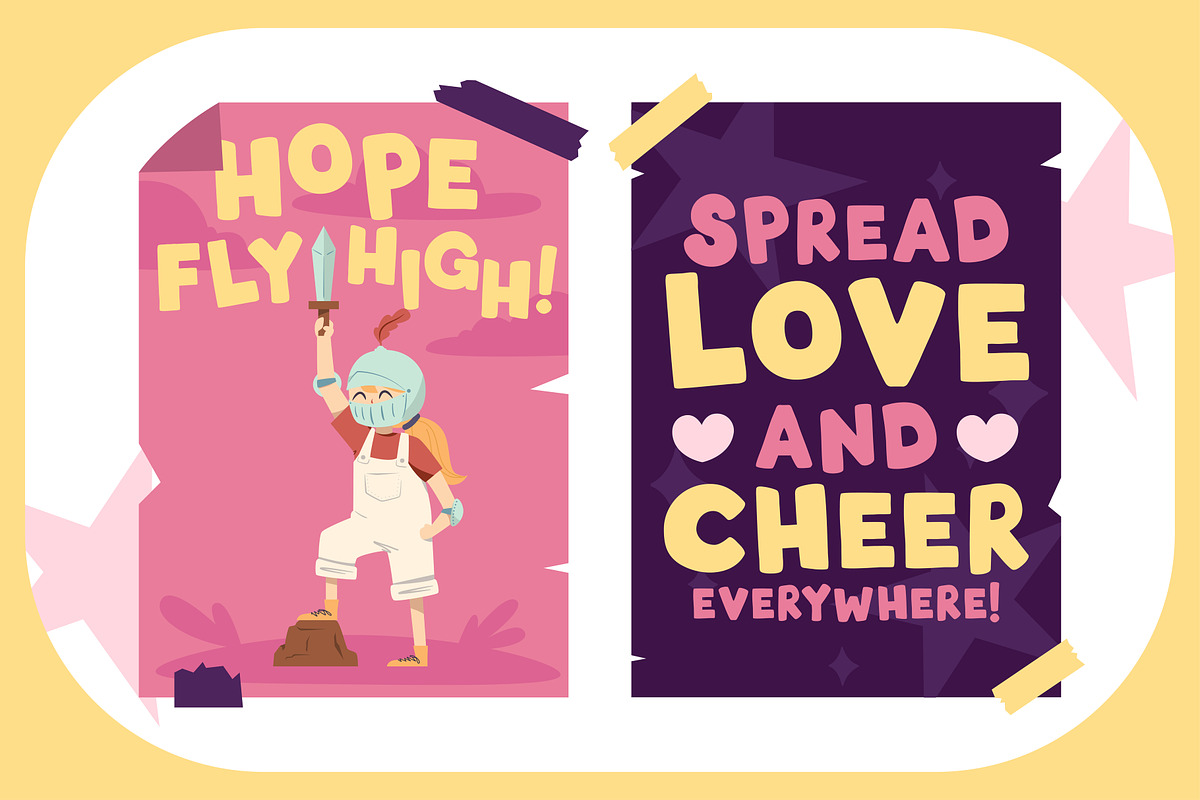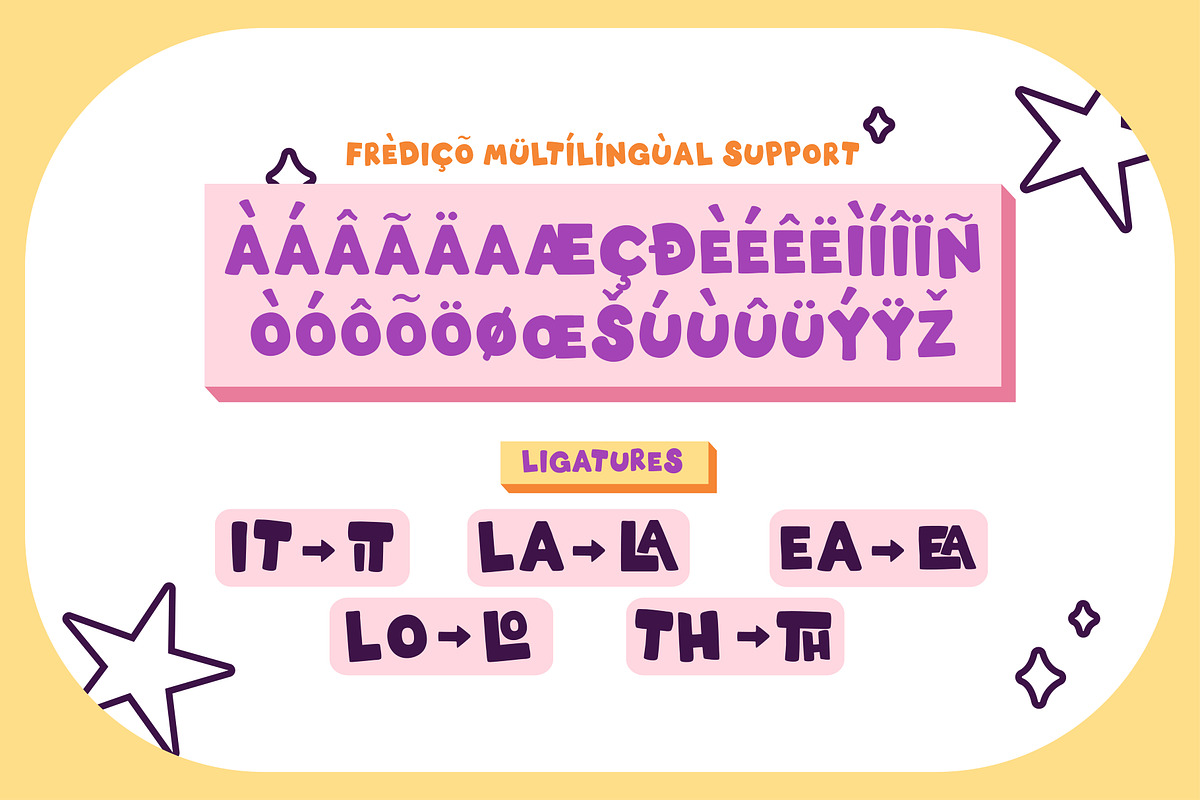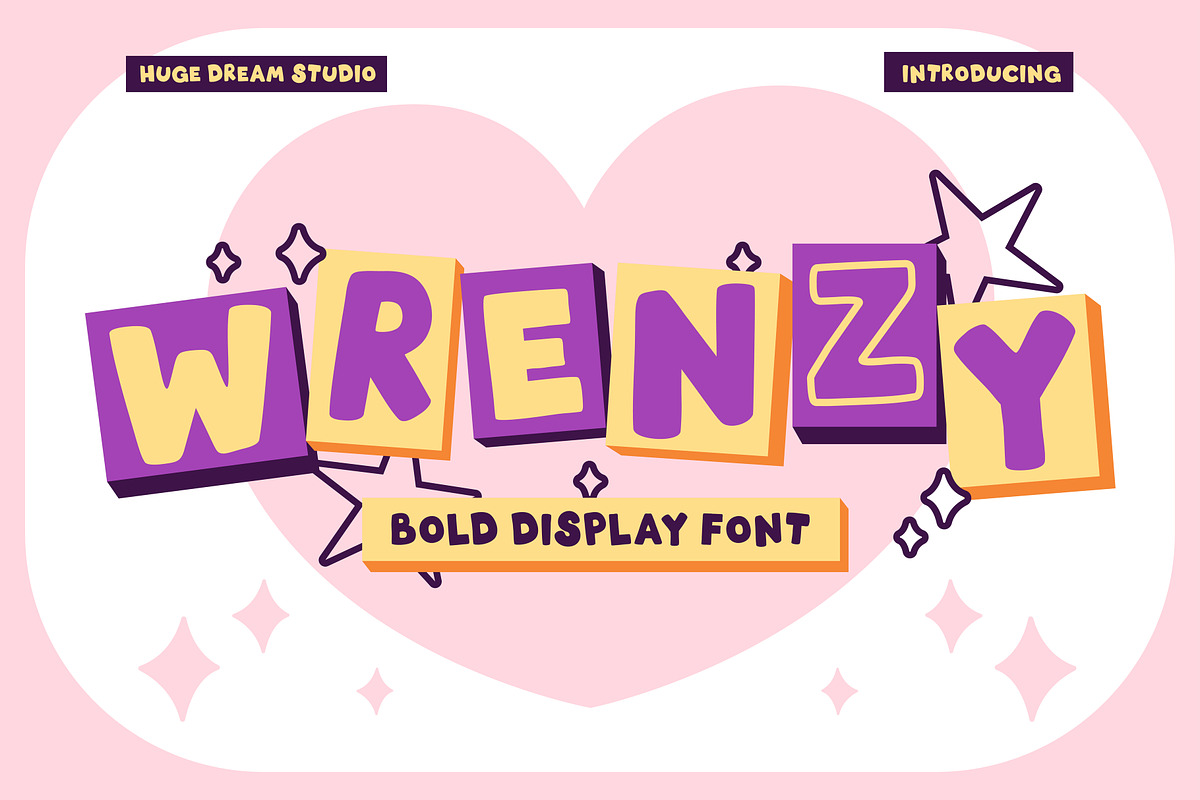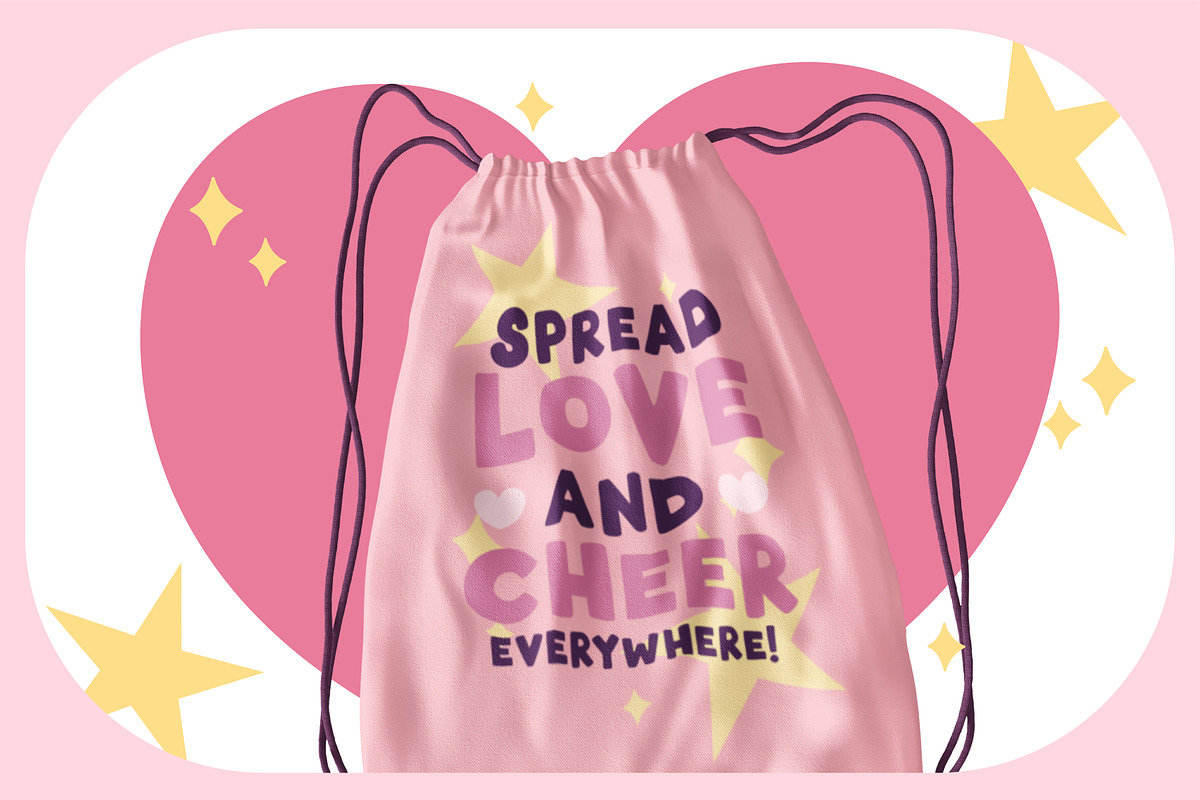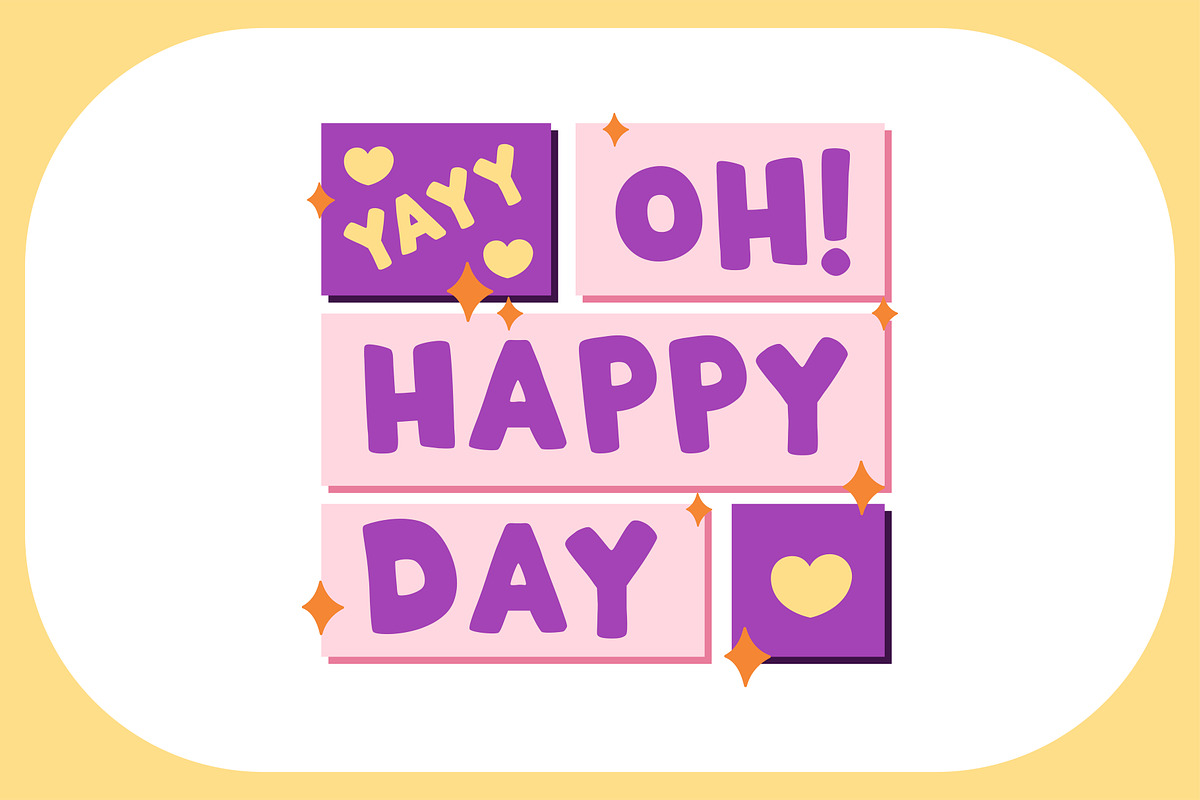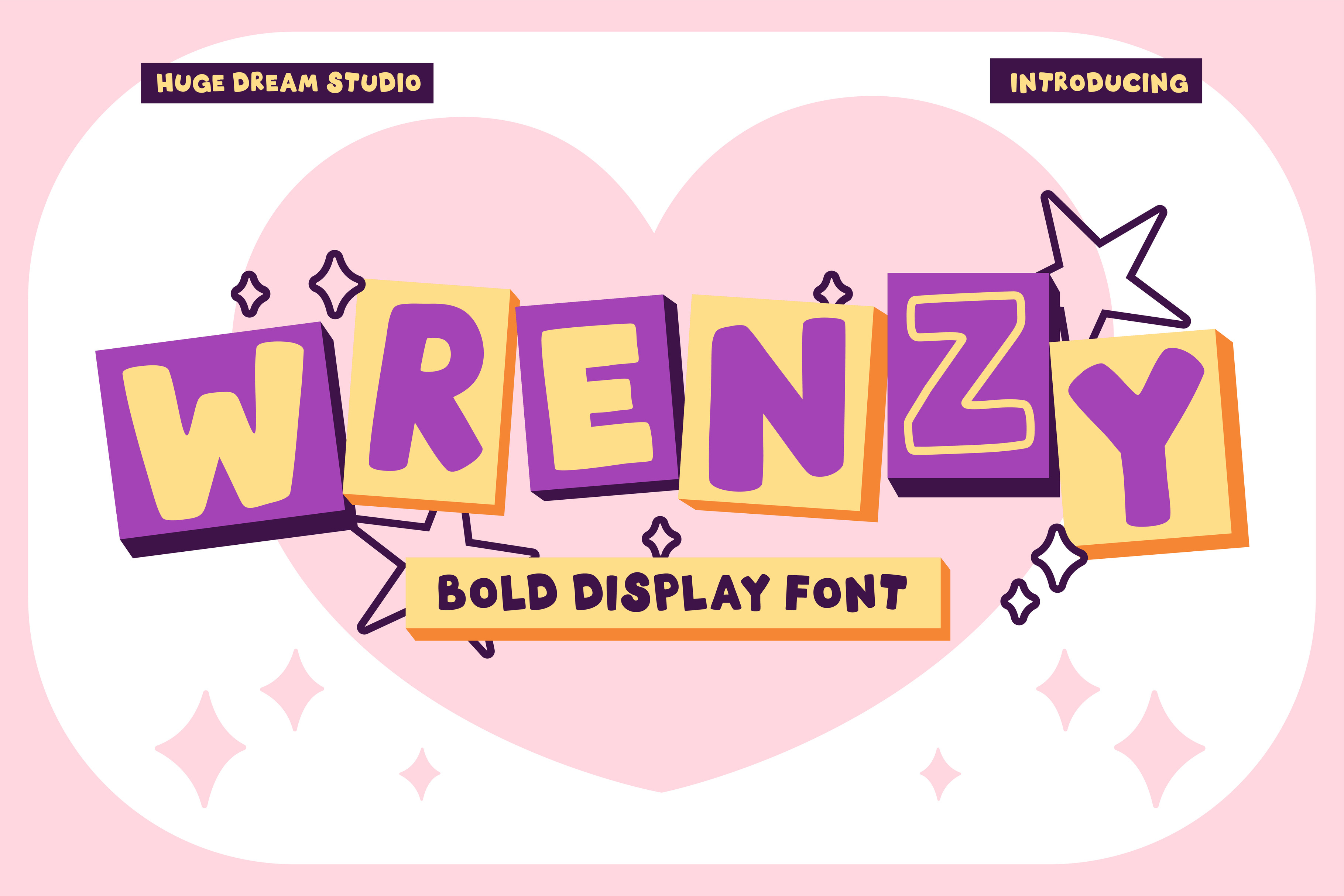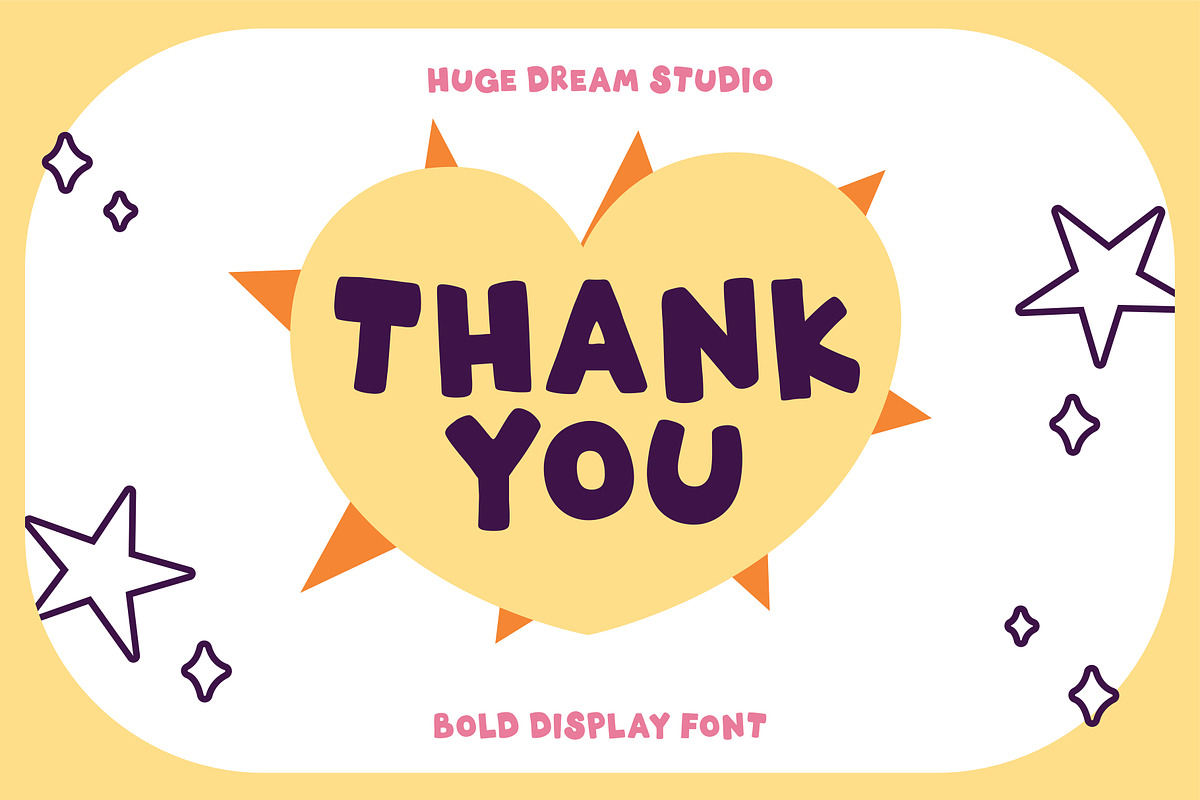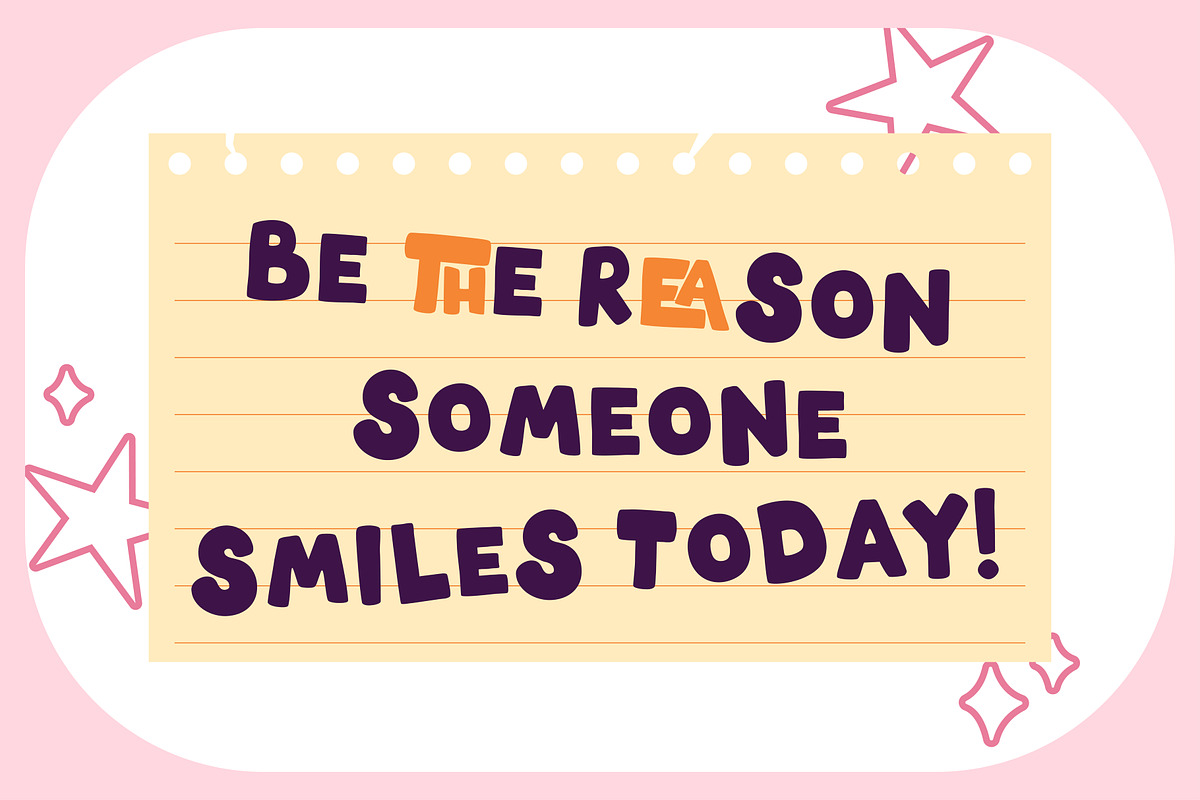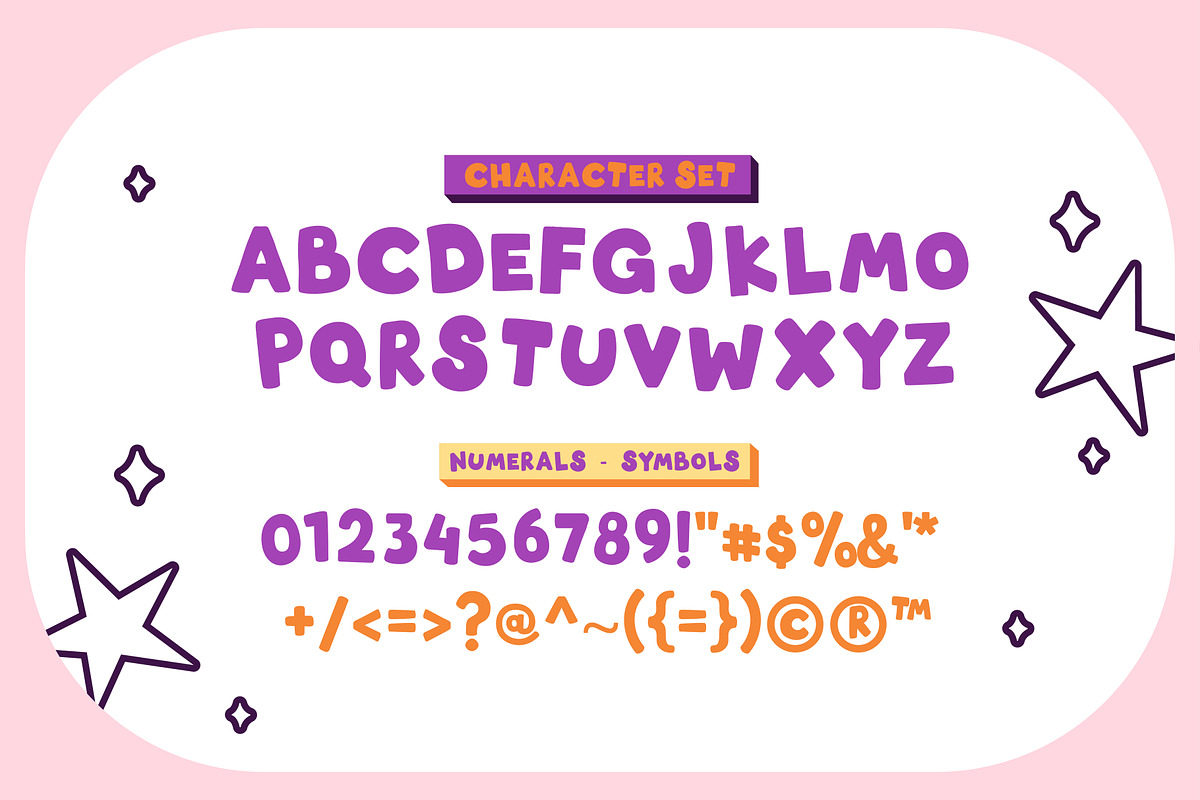
Wrenzy – Bold Display Font
Wrenzy is a playful and vibrant bold display font crafted to ignite the imagination of young readers! Perfectly tailored for Children’s Books, this font brings a sense of fun and adventure to every letter. Its quirky curves and bold strokes make stories leap off the page, captivating kids with its lively and approachable design. Whether you’re illustrating a whimsical fairytale or a colorful educational book, Wrenzy adds charm and energy to every word. Let Wrenzy Bold Display Font be the bridge that connects creativity with storytelling magic!
Wrenzy – Bold Display Font features: Character Set (All Caps) Punctuation & Numbers Multilingual Standard Ligatures File Included: OTF & TTF